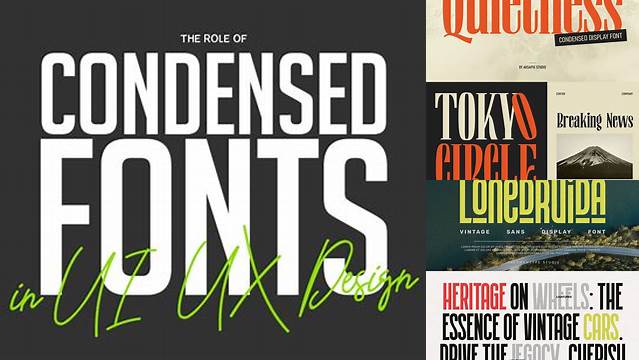
Best Condensed Fonts In Adobe: Your Ultimate Guide
Are you guys looking for the best condensed fonts Adobe offers? You've come to the right place! Condensed fonts are a designer's secret weapon for maximizing space without sacrificing readability. Whether you're working on a sleek website, a compelling brochure, or even just trying to fit more text into a limited area, choosing the right condensed font can make all the difference. In this guide, we'll dive deep into the world of condensed fonts available in Adobe's vast library, exploring their unique characteristics, best use cases, and why they're essential for modern design. So, buckle up and let's get started on this typographic journey!
Why Use Condensed Fonts?
Condensed fonts, also known as compressed or narrow fonts, are designed with a reduced width compared to their regular counterparts. This clever design allows you to fit more text into a smaller space, which can be a lifesaver in various design scenarios. Let's break down some of the key benefits:
- Space Efficiency: This is the primary reason to use condensed fonts. They allow you to squeeze more characters into a line or paragraph, which is crucial for layouts with limited space, such as brochures, posters, and mobile interfaces. Imagine you have a headline that's just a little too long – a condensed font can be the perfect solution to make it fit without compromising the overall design.
- Visual Hierarchy: Condensed fonts can be used to create visual contrast and hierarchy within your design. By pairing a condensed font with a wider font, you can draw attention to specific elements and guide the reader's eye through the page. For example, using a bold condensed font for headlines and a regular-width font for body text can create a clear and engaging visual hierarchy.
- Modern Aesthetic: Many condensed fonts have a sleek and contemporary feel, making them ideal for designs that aim for a modern look. Their narrow proportions often convey a sense of sophistication and efficiency, which can be particularly effective in branding and editorial design. Think about the sharp, clean lines often seen in tech company logos – many of them utilize condensed fonts to project a sense of innovation and modernity.
- Readability: While it might seem counterintuitive, well-designed condensed fonts can be highly readable. The key is to choose a font that maintains clear letterforms and adequate spacing, even in its condensed form. High-quality condensed fonts from reputable foundries, like those available in Adobe Fonts, are meticulously crafted to ensure readability across various sizes and applications.
- Versatility: Condensed fonts aren't just for headlines or tight spaces. They can be used in a variety of applications, from body text in magazines and newspapers to captions and labels in infographics. Their versatility makes them a valuable asset in any designer's toolkit. Consider using a condensed font for sidebars or footnotes to differentiate them from the main content while maintaining a cohesive design.
In short, using condensed fonts is all about making the most of your space while maintaining readability and visual appeal. They're a versatile tool that can enhance the overall impact of your design, whether you're aiming for a modern, space-saving, or visually striking aesthetic. Choosing the right condensed font can truly elevate your project and make it stand out from the crowd.
Top Condensed Fonts Available on Adobe Fonts
Alright guys, let's dive into the top condensed fonts that Adobe Fonts has to offer! Adobe Fonts is a treasure trove of typographic goodness, and it can be a bit overwhelming to sift through all the options. But don't worry, I've done the legwork for you. Here are some standout condensed fonts that you should definitely check out:
1. Bebas Neue
Bebas Neue is like the rockstar of condensed fonts – super popular and for good reason! It's a sans-serif font that's clean, modern, and incredibly versatile. Its tall, narrow letterforms make it perfect for headlines, posters, and branding materials. Bebas Neue has a strong, assertive presence that commands attention, making it a go-to choice for projects that need to make a statement. Imagine seeing it splashed across a billboard or used in a cutting-edge website header – it just works!
What makes Bebas Neue so special? Well, it's not just about its looks. It's also about its readability. Despite its condensed form, Bebas Neue maintains excellent legibility, even at smaller sizes. This is crucial because you don't want a font that's stylish but hard to read. Plus, it's free to use through various sources, including Adobe Fonts, which makes it accessible to everyone, from seasoned designers to students just starting out. Bebas Neue has earned its reputation as a reliable and stylish choice for countless design projects.
2. Montserrat
Montserrat is a classic sans-serif font family that includes a condensed version, and it's a beauty. Inspired by the urban typography of the Montserrat neighborhood in Buenos Aires, this font exudes a sense of sophistication and urban cool. The condensed version of Montserrat offers a more streamlined and space-efficient option without sacrificing the font's inherent elegance. It's like the regular Montserrat, but with a little extra pep in its step.
Why is Montserrat Condensed such a great choice? Firstly, it's incredibly versatile. It works beautifully in both headlines and body text, making it a fantastic option for projects where you want a consistent typographic feel throughout. Secondly, its clean and geometric letterforms ensure excellent readability, even in condensed form. This is essential for maintaining a professional and polished look. Think about using Montserrat Condensed for a sleek corporate website or a sophisticated marketing brochure – it's a font that can elevate any project.
3. Roboto Condensed
Roboto Condensed is part of the larger Roboto family, which is a widely used sans-serif font known for its clean and modern aesthetic. The condensed version offers a narrower option that's perfect for situations where space is at a premium. Roboto Condensed strikes a perfect balance between functionality and style, making it a reliable choice for a wide range of applications. It's like the dependable friend you can always count on.
What makes Roboto Condensed stand out? Its versatility is a major plus. It works exceptionally well in UI/UX design, where readability and space efficiency are paramount. Think about app interfaces, website navigation menus, and data-heavy dashboards – Roboto Condensed shines in these environments. Its clean lines and clear letterforms ensure that information is easily digestible, which is crucial for user experience. Plus, because it's part of the Roboto family, it pairs seamlessly with other Roboto styles, giving you plenty of flexibility in your design.
4. Oswald
Oswald is a reworked version of the classic sans-serif typeface, designed specifically for digital displays. Its condensed proportions give it a contemporary and dynamic feel, making it a great choice for headlines, titles, and other display text. Oswald is like the font that's always ready for its close-up.
Why should you consider Oswald for your next project? Well, its strong and assertive letterforms command attention, making it ideal for grabbing the reader's eye. Imagine using Oswald for website headers, poster designs, or social media graphics – it's a font that makes a statement. Plus, it's designed with the screen in mind, so it looks crisp and clear even on high-resolution displays. This is essential for maintaining a professional and polished look in the digital realm. Oswald is a font that combines classic appeal with modern sensibilities, making it a versatile and stylish choice.
5. Open Sans Condensed
Open Sans Condensed is another popular sans-serif option that's known for its neutrality and readability. It's part of the larger Open Sans family, which is widely used across the web due to its clean and approachable design. The condensed version provides a more space-efficient option without sacrificing the font's inherent clarity. Open Sans Condensed is like the font that's always friendly and easy to get along with.
What makes Open Sans Condensed such a great choice? Its readability is a major selling point. It's designed to be legible across various sizes and platforms, making it a reliable option for body text, captions, and other text-heavy applications. Think about using Open Sans Condensed for articles, reports, and presentations – it's a font that ensures your message is clear and easy to understand. Plus, its neutral design makes it a versatile choice that can fit seamlessly into a wide range of design styles. Open Sans Condensed is a font that prioritizes clarity and accessibility, making it a valuable asset in any designer's toolkit.
Tips for Using Condensed Fonts Effectively
Okay guys, now that we've explored some awesome condensed fonts, let's talk about how to use them effectively. Just like any design element, condensed fonts have their own set of best practices. Using them wisely can elevate your design, but using them poorly can lead to readability issues and an overall cluttered look. So, let's dive into some tips to make sure you're rocking those condensed fonts like a pro!
- Pairing is Key: Condensed fonts often look best when paired with a wider font. This creates a visual contrast that adds interest and helps establish a clear hierarchy. Think of it like a dynamic duo – the condensed font brings the sharpness and efficiency, while the wider font provides balance and readability. For example, you could use a bold condensed font for headlines and a regular-width serif font for body text. This combination can create a sophisticated and engaging look. Experiment with different pairings to find what works best for your project, but always keep readability in mind.
- Consider the Context: The best use of a condensed font depends heavily on the context of your design. For instance, a highly condensed font might work well for a headline or title, but it could be straining on the eyes in long blocks of body text. Think about the purpose of your design and the overall message you're trying to convey. If you're designing a poster or a website header, a bold, attention-grabbing condensed font can be a great choice. However, if you're working on a lengthy article or a report, you'll want to choose a condensed font that's still easy to read in large quantities. Always prioritize readability, and choose a font that fits the specific needs of your project.
- Mind the Letter Spacing and Line Height: Condensed fonts can sometimes appear cramped if not spaced properly. Pay close attention to the letter spacing (tracking) and line height (leading) to ensure readability. A little extra space can make a big difference in how the font looks and feels. Adjusting the letter spacing can help to prevent the letters from feeling too crowded, while increasing the line height can improve the overall flow of the text. Experiment with these settings until you achieve a comfortable and visually appealing result. Remember, the goal is to make the text easy to read and understand, so don't be afraid to tweak these settings until you get it just right.
- Avoid Overuse: While condensed fonts can be a great way to save space and create visual interest, it's important to avoid overusing them. Using too many condensed fonts in a single design can make it look cluttered and overwhelming. Think of them as a spice – a little can add flavor, but too much can ruin the dish. Use condensed fonts strategically to highlight key elements or sections of your design, but don't feel like you need to use them everywhere. Sometimes, a mix of condensed and regular-width fonts can create a more balanced and visually appealing result.
- Test Readability: Always test the readability of your chosen condensed font, especially at smaller sizes. What looks great on your screen might not translate well in print or on different devices. Print out a sample of your design or view it on various devices to ensure that the text is legible and easy to read. Pay attention to how the font looks in different lighting conditions and on different screen resolutions. If you notice any readability issues, consider adjusting the font size, letter spacing, or line height. It's always better to catch these issues early in the design process rather than after your project is finalized.
So, there you have it, guys! A comprehensive guide to the best condensed fonts available on Adobe Fonts and how to use them effectively. Condensed fonts are a powerful tool in any designer's arsenal, offering a unique blend of space efficiency, modern aesthetics, and visual impact. Whether you're crafting a sleek website, a compelling brochure, or a standout poster, the right condensed font can make all the difference.
Remember, the key to using condensed fonts successfully is to choose fonts that maintain readability, pair them thoughtfully with other fonts, and pay close attention to spacing and line height. And most importantly, don't be afraid to experiment! Try out different fonts, pairings, and layouts to discover what works best for your project. With a little practice and creativity, you can harness the power of condensed fonts to create stunning and effective designs. Happy designing!